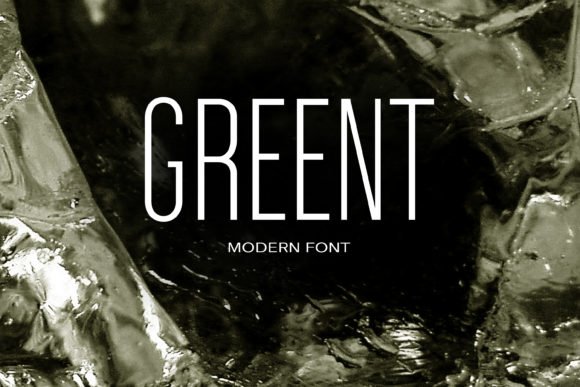
Introduction to Greent Font
Greent is a modern and clean sans serif font with an incredibly cool feel.
Key Features of Greent Font
Why Choose Greent Font?
Greent Font offers exceptional quality and versatility, making it a valuable addition to your design toolkit. Whether you’re creating for personal projects or commercial use, Greent Font delivers professional results.